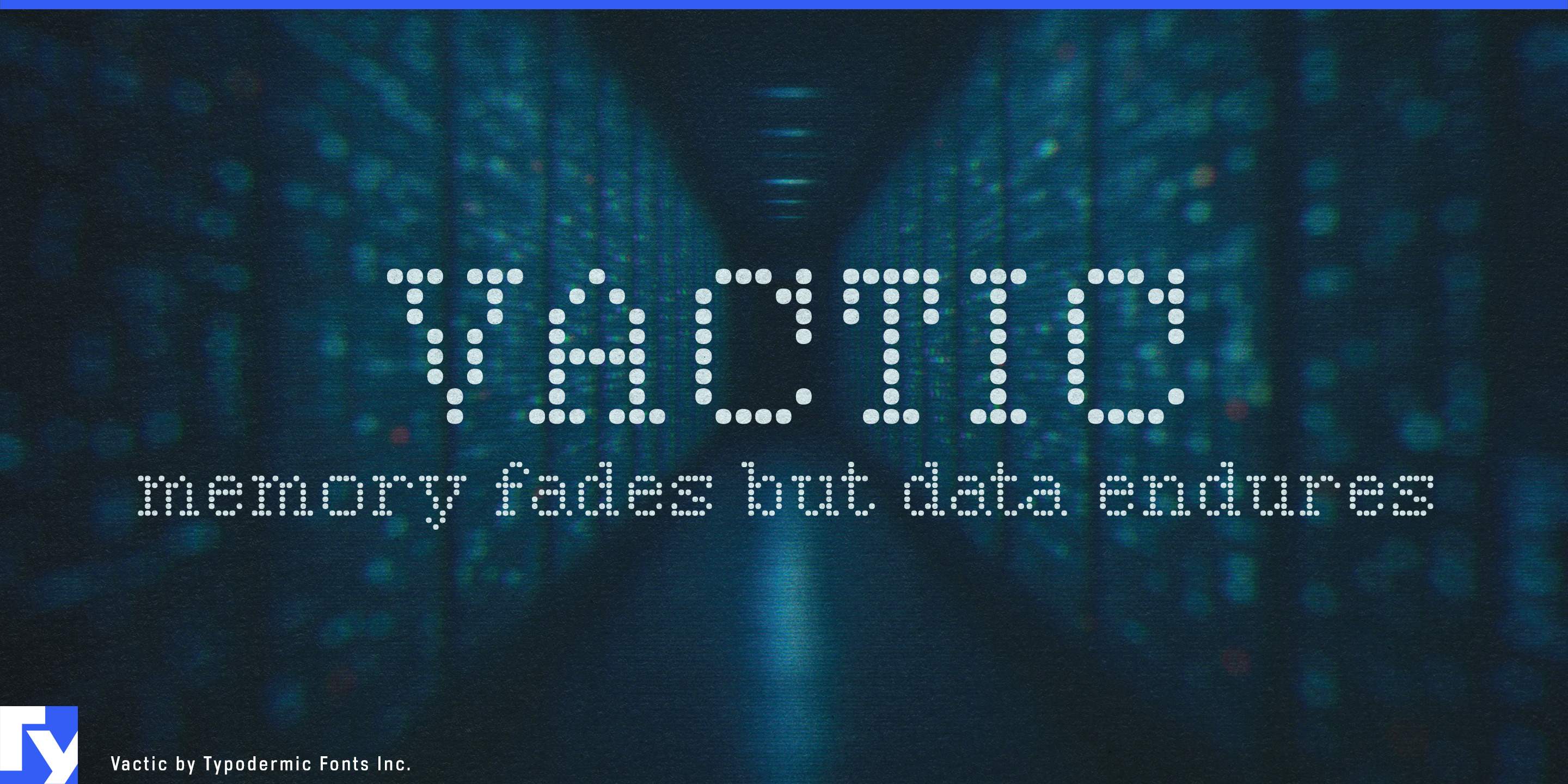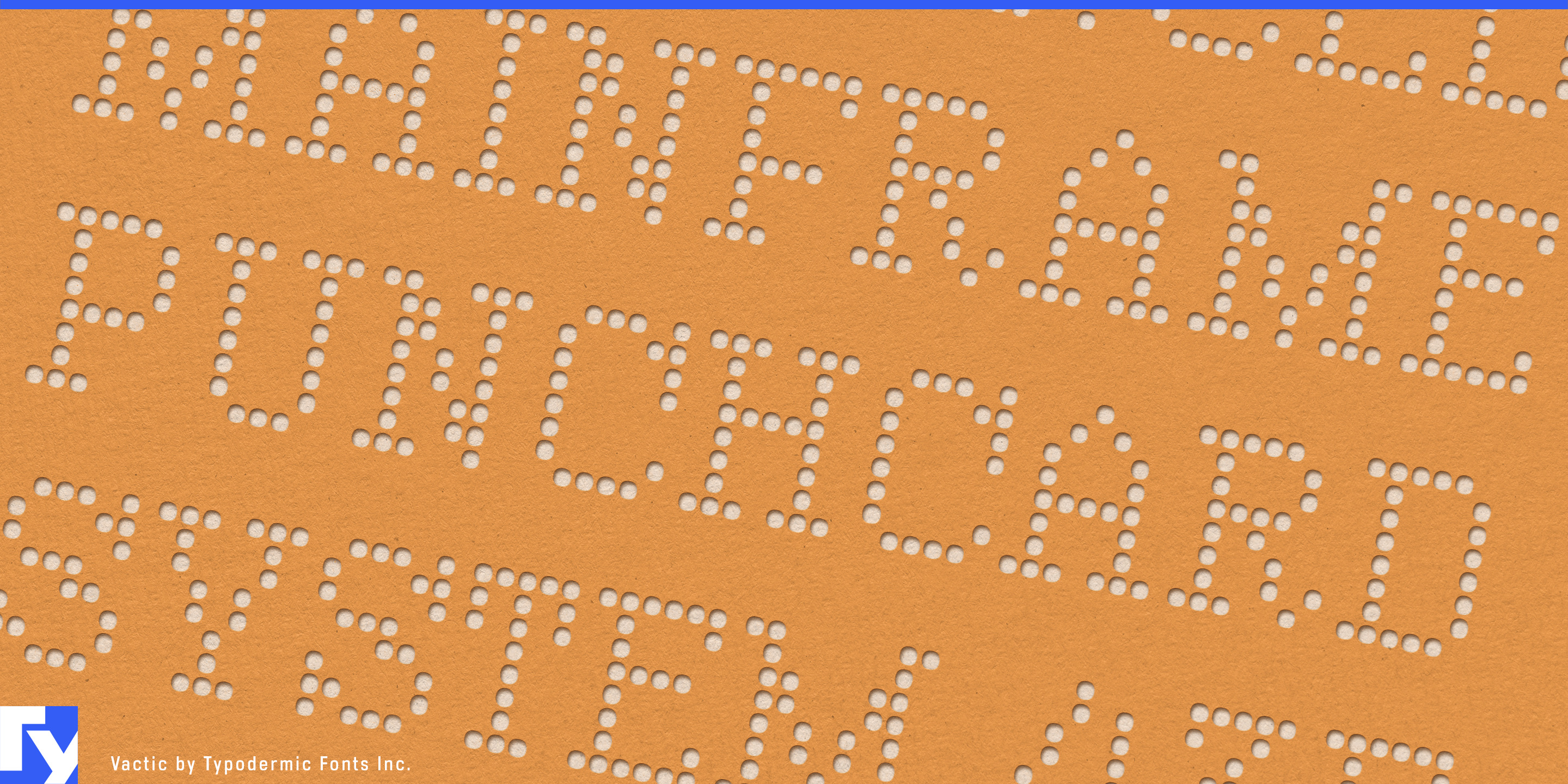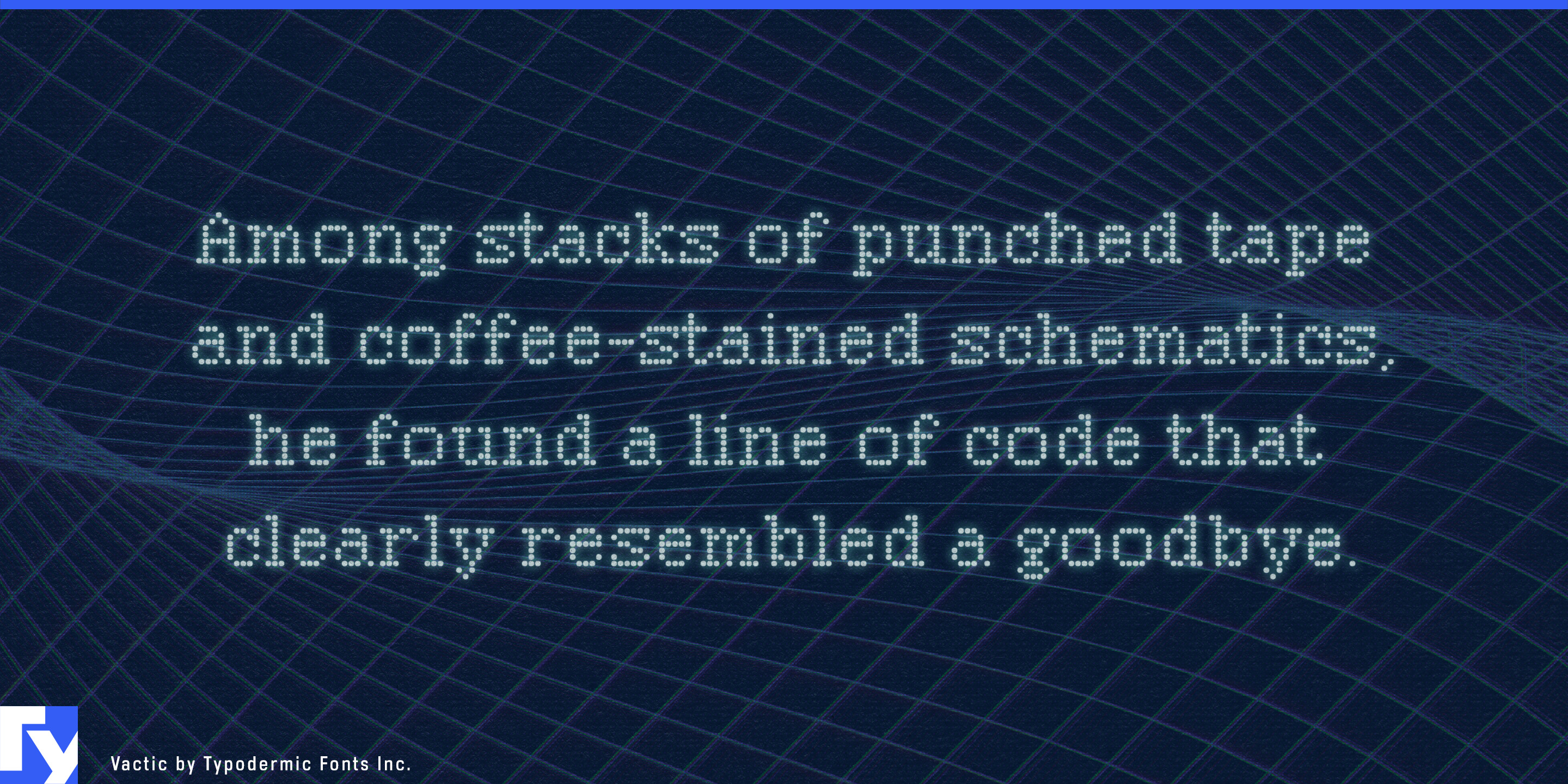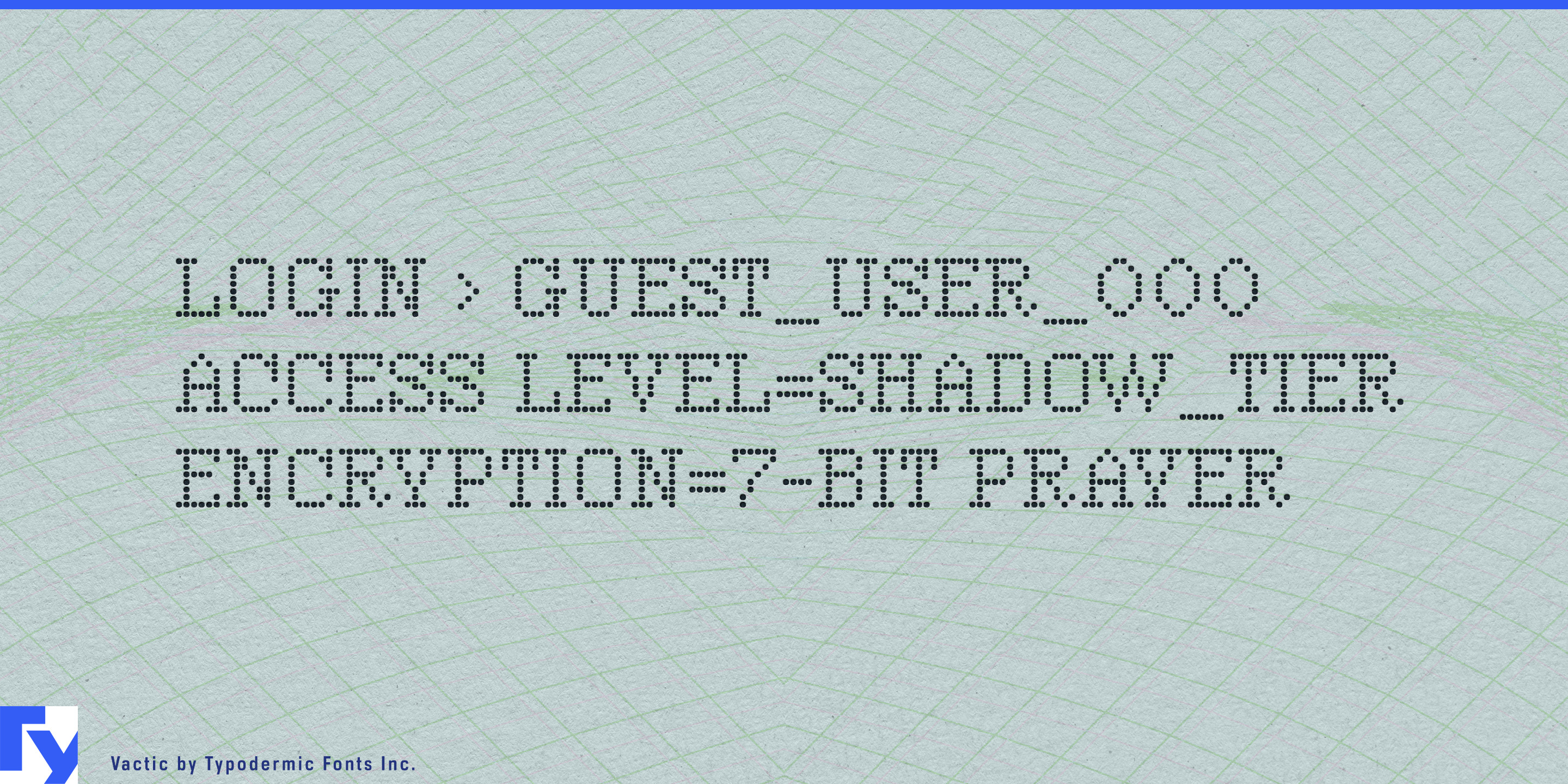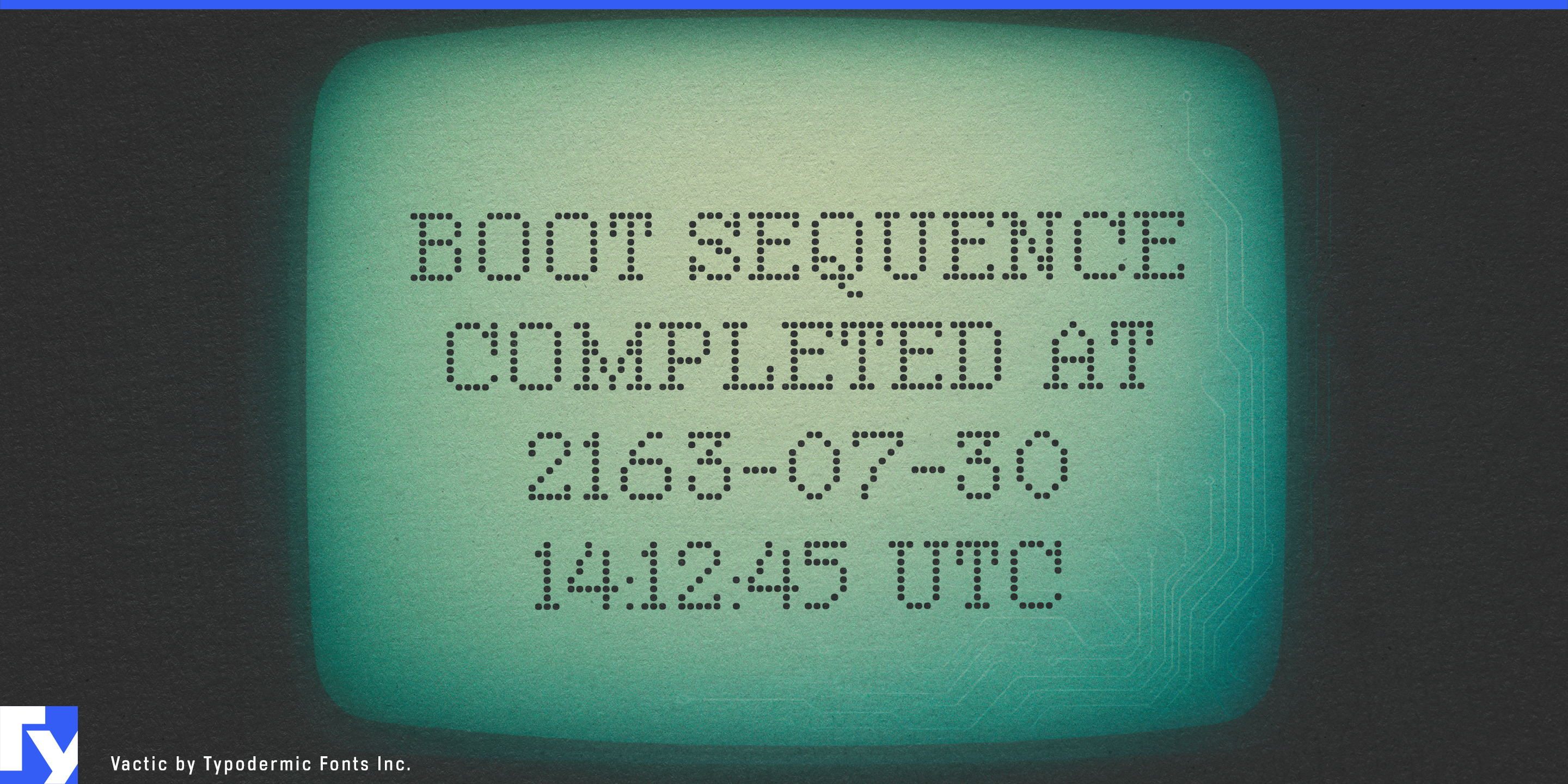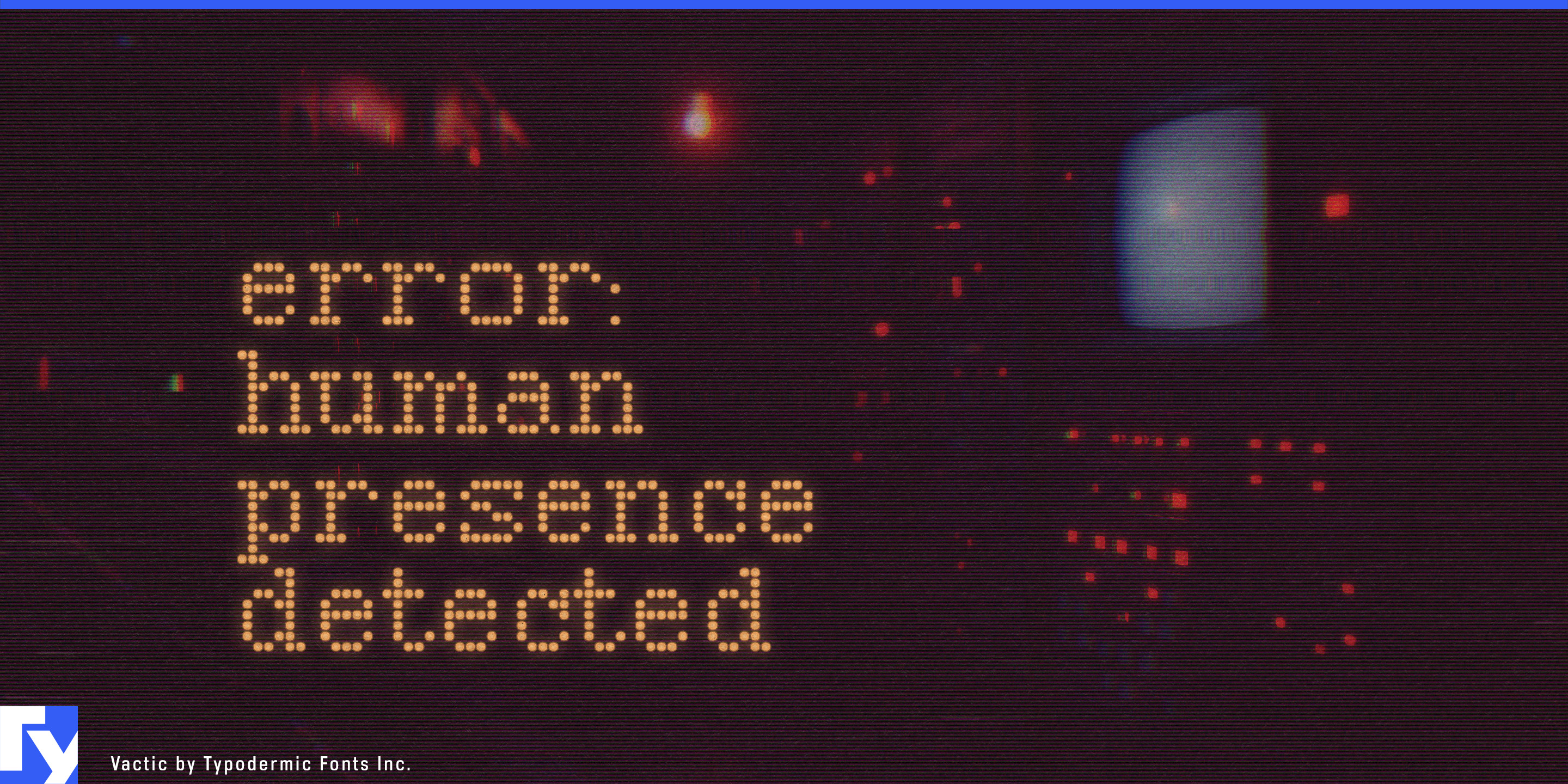
Vactic
Vactic turns words into fields of points. Its letters are built from dense arrays of tiny circular marks, creating a texture that changes with scale: close up, the construction is obvious; from farther away, the points gather into compact serif forms. It works best for very short text at very large sizes, where the dotted structure becomes part of the image.
Point-cloud visualization is an especially natural setting. Lidar companies, industrial 3D-scanning systems, geospatial platforms, architectural scanning, and digital-twin services already work with imagery assembled from sampled points. Vactic can carry product names, exhibition titles, report covers, launch graphics, and conference installations while sharing the same visual material as the data around it.
The dots can also read as holes. Architectural acoustic panels, perforated metal systems, speaker grilles, ventilation products, filters, and façade materials all rely on repeated openings across a surface. Vactic can translate that physical language into oversized trade-show titles, catalogue covers, showroom graphics, material-sample displays, and campaign imagery.
At another scale, the points become light emitters. Architectural LED installations, arena presentation systems, immersive exhibitions, and large event graphics can use Vactic for words that glow, pulse, fragment, or gradually resolve into legible forms. Professional audio offers similar territory through speaker grilles, acoustic treatment, meters, and luminous display systems.
Particle-based imagery opens another route. Additive manufacturing, metal powders, microscopy, advanced materials, and semiconductor research often visualize matter as grains, particles, or sampled data; Vactic can carry short campaign titles and major section headings within those visual systems.
Vactic is deliberately specialized. At ordinary sizes, its tiny dots and tight spacing resist casual reading. Enlarged across a wall, screen, façade, enclosure, or exhibition structure, those same limitations become the reason to use it.